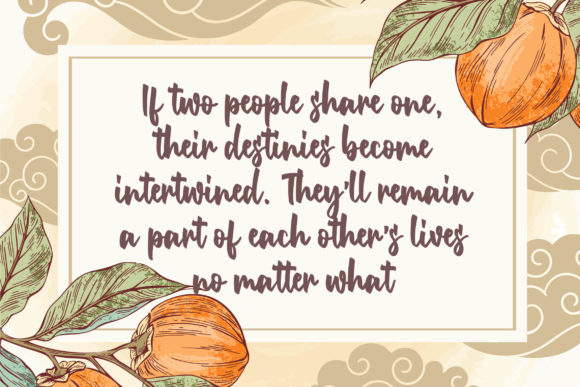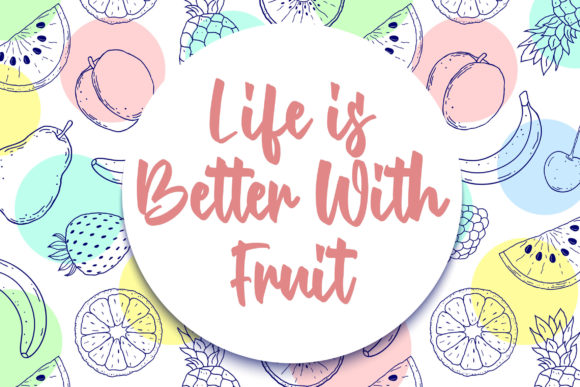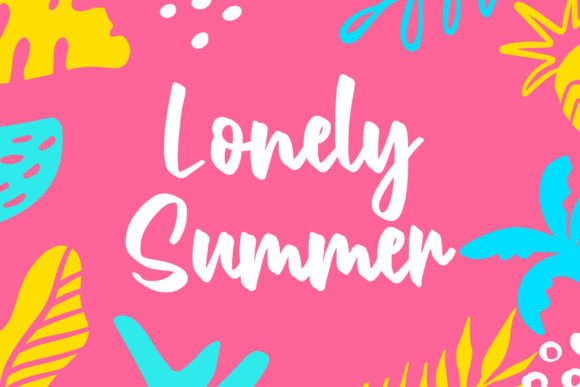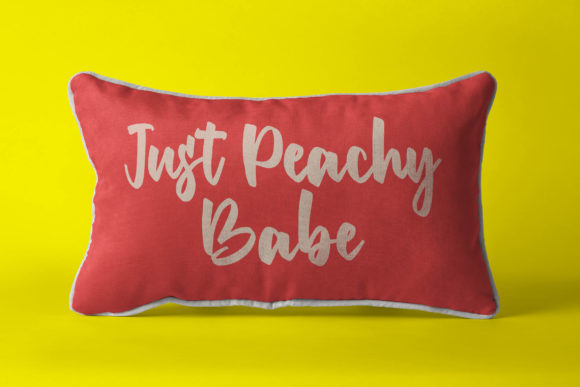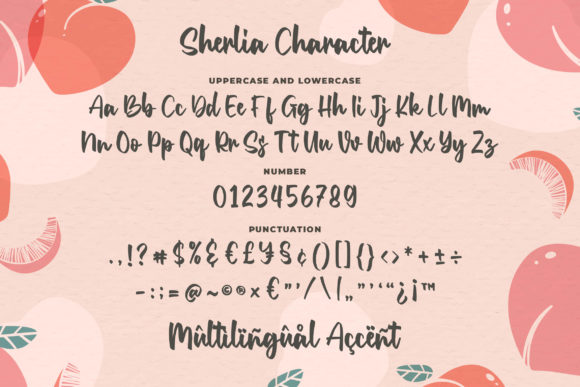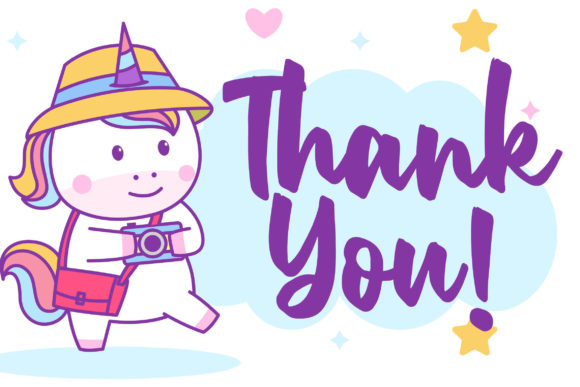
Introduction to Sherlia Font
As designers, we’ve all been there – staring at a blank canvas, trying to bring our creative vision to life. The right font can make all the difference, and that’s exactly where the Sherlia Font comes in. With its cute and casual handwritten feel, this design resource is sure to add a touch of warmth and personality to any project.
Whether you’re working on a wedding invitation, a beautiful piece of stationery, or a social media post, the Sherlia Font is the perfect addition to bring your creative project to the next level. And the best part? This high-quality font is available for free download, making it an accessible design resource for designers of all levels.
- Unique, modern font with a transparent background, allowing for versatility in design applications.
- Comes in a single font style, ideal for those who want a clean and minimalist look for their creative project.
- Suitable for various design elements, including logos, headings, and body text, making it a valuable design resource.
Honest Review: Sherlia Font
I recently had the chance to work with the Sherlia Font, and I must say it’s a great addition to any design resource library. As a designer, I’m always on the lookout for high-quality fonts to elevate my creative projects. Sherlia Font definitely delivers.
- Unique aesthetic: The Sherlia Font has a distinct, elegant feel that sets it apart from more common fonts.
- High-quality design: The font is well-crafted and professional, making it perfect for use in formal and business contexts.
Overall, I’m impressed with the Sherlia Font and would definitely consider using it in my future design projects. Its unique aesthetic and high-quality design make it a valuable addition to any design resource library.
Sherlia Font
To get the most out of the Sherlia Font, use it with a transparent background to create a clean and modern look. Experiment with different font sizes and styles to add visual interest to your design.
Alternatives to Sherlia Font
Great Vibes is a high-quality, cursive font that’s perfect for creative projects, such as wedding invitations, quotes, or social media graphics. It features a transparent background and can be easily customized for a free download. Great Vibes Font is a great alternative to Sherlia Font when you need a more elegant and sophisticated look.
Dancing Script is a beautiful, handwritten font that’s ideal for design projects that require a touch of whimsy and personality. It’s available for free download and features a transparent background, making it easy to use in various design contexts. Compared to Sherlia Font, Dancing Script is more playful and fun, making it perfect for creative projects that need a bit of flair.
Alex Brush is a high-quality, script font that’s perfect for design projects that require a touch of elegance and sophistication. It features a transparent background and can be easily customized for a free download. Alex Brush Font is a great alternative to Sherlia Font when you need a more refined and polished look.
Ostrich Sans is a modern, sans-serif font that’s perfect for design projects that require a clean and minimalist look. It’s available for free download and features a transparent background, making it easy to use in various design contexts. Compared to Sherlia Font, Ostrich Sans is more modern and sleek, making it perfect for creative projects that need a bit of sophistication.